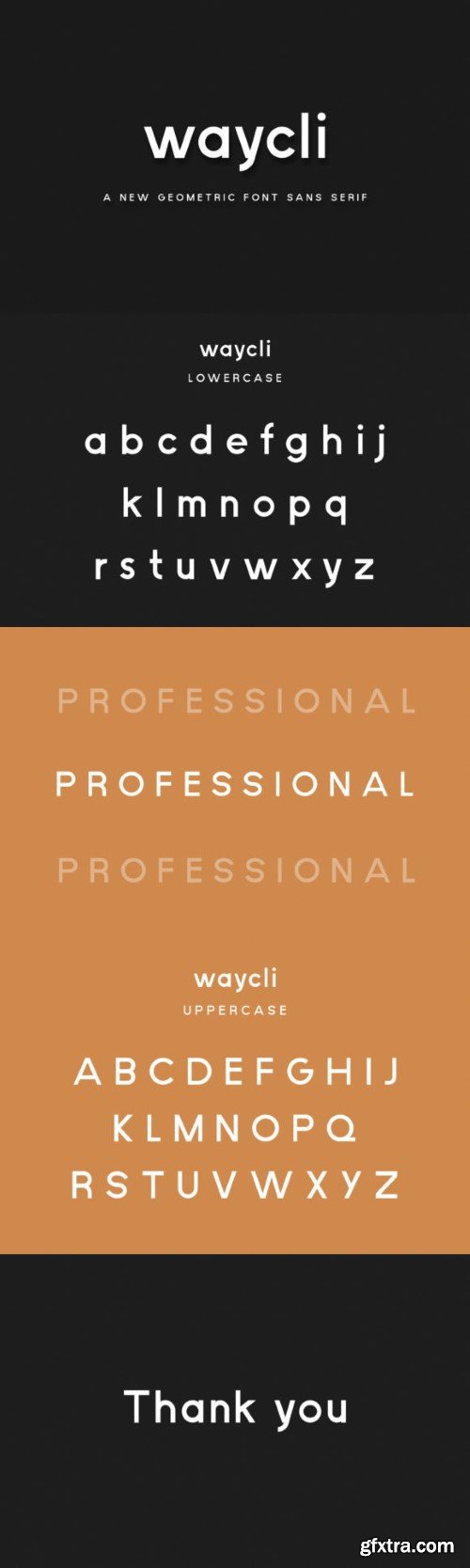
WAYCLI 字体
Waycli is a cool and modern looking sans serif font. It is suitable for book texts, documentation, business reports, business correspondence, magazines, newspapers, posters, advertisements, multimedia, and corporate design.